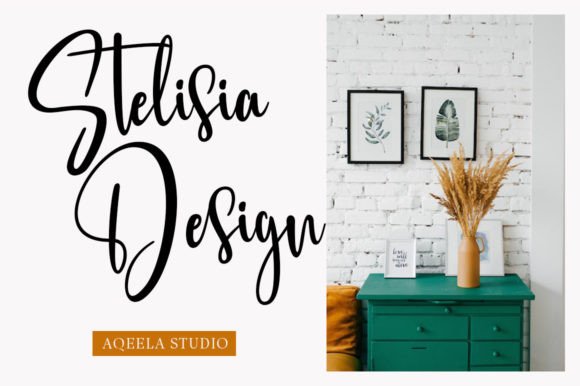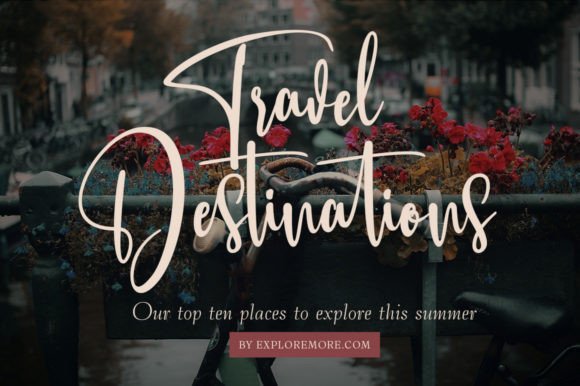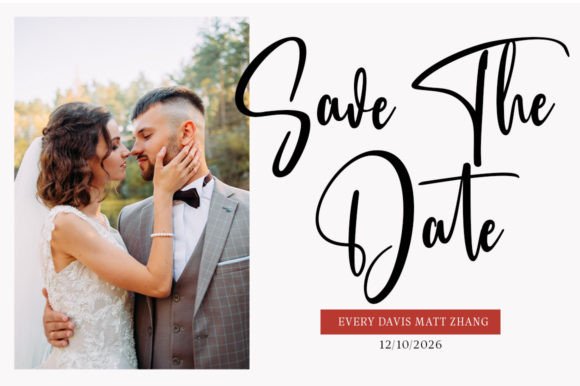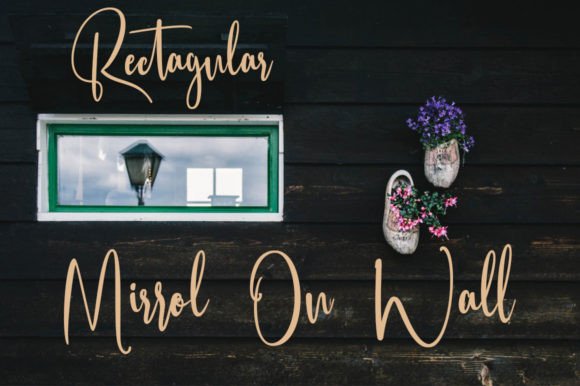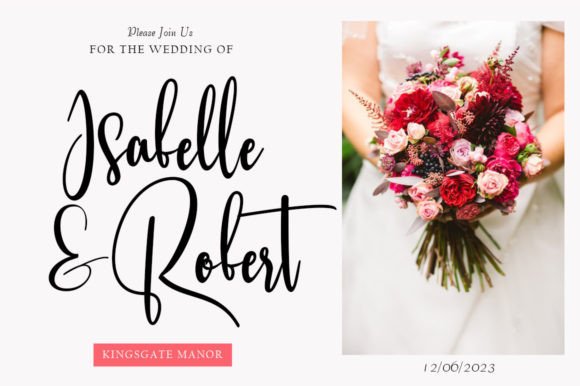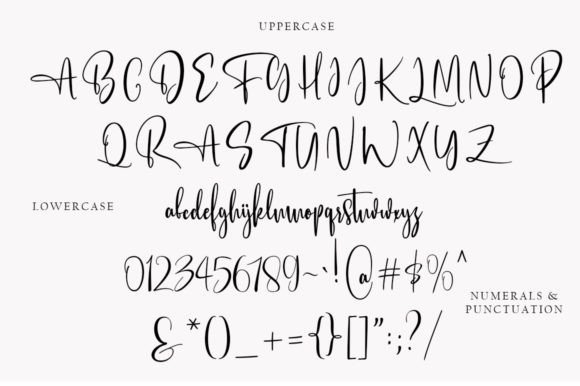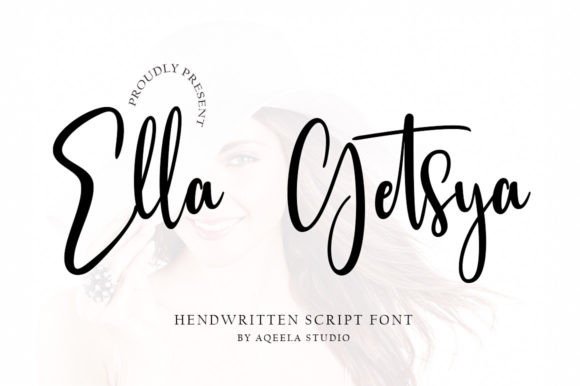
Ella Getsya Font: A Stylish and Seductive Handwritten Font
Are you looking for a font that can add a touch of elegance and sophistication to your designs? Look no further than the Ella Getsya font. This stylish and seductive handwritten font is inspired by typographical art and is filled with uniqueness. In this article, we’ll take a closer look at the Ella Getsya font and explore its features, benefits, and uses.
What is Ella Getsya Font?
Ella Getsya is a handwritten font that is inspired by the free-flowing lines of an artist’s handprints on paper. Each letter is filled with tenderness and incomparable charm, making it perfect for designs that require a personal touch. The lines gently bend and play with empty space, creating an organic and natural look that is both stylish and seductive.
Features of Ella Getsya Font
The Ella Getsya font has several features that make it stand out from other fonts. Some of its key features include:
- Handwritten style: The Ella Getsya font is a handwritten font that is designed to look like it was written by hand. This gives it a personal and unique touch that is perfect for designs that require a human touch.
- Unique letterforms: Each letter in the Ella Getsya font is unique and filled with character. The lines gently bend and play with empty space, creating an organic and natural look.
- Stylish and seductive: The Ella Getsya font is both stylish and seductive, making it perfect for designs that require a touch of elegance and sophistication.
- Versatile: The Ella Getsya font is versatile and can be used for a wide range of designs, from wedding invitations to branding and packaging.
Benefits of Using Ella Getsya Font
There are several benefits to using the Ella Getsya font in your designs. Some of the benefits include:
- Adds a personal touch: The Ella Getsya font adds a personal touch to your designs, making them stand out from the crowd.
- Creates an emotional connection: The unique and handwritten style of the Ella Getsya font creates an emotional connection with the reader, making your designs more engaging and memorable.
- Perfect for creative designs: The Ella Getsya font is perfect for creative designs that require a touch of elegance and sophistication.
- Easily readable: The Ella Getsya font is easily readable, making it perfect for designs that require a clear and concise message.
Uses of Ella Getsya Font
The Ella Getsya font can be used for a wide range of designs, including:
- Wedding invitations: The Ella Getsya font is perfect for wedding invitations, adding a touch of elegance and sophistication to your designs.
- Branding and packaging: The Ella Getsya font can be used for branding and packaging, creating a unique and memorable identity for your brand.
- Posters and flyers: The Ella Getsya font is perfect for posters and flyers, adding a touch of style and sophistication to your designs.
- Social media graphics: The Ella Getsya font can be used for social media graphics, creating engaging and memorable content for your audience.
The Ella Getsya font is a stylish and seductive handwritten font that is perfect for designs that require a touch of elegance and sophistication. Its unique letterforms, handwritten style, and versatility make it a great choice for a wide range of designs. Whether you’re a designer or a crafter, the Ella Getsya font is a great addition to your font library.